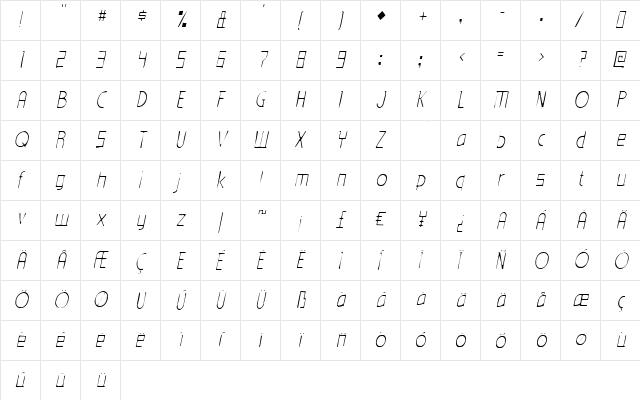
Eden Mills Gaunt Italic
| Designer | Ray Larabie / Larabie Fonts |
Design Context for Eden Mills Gaunt Typeface
Eden Mills Gaunt offers clean, dependable letterforms without strong stylistic allegiance, making it a practical choice for designers who need flexibility. Its italic angle brings a sense of urgency and motion to the letterforms.